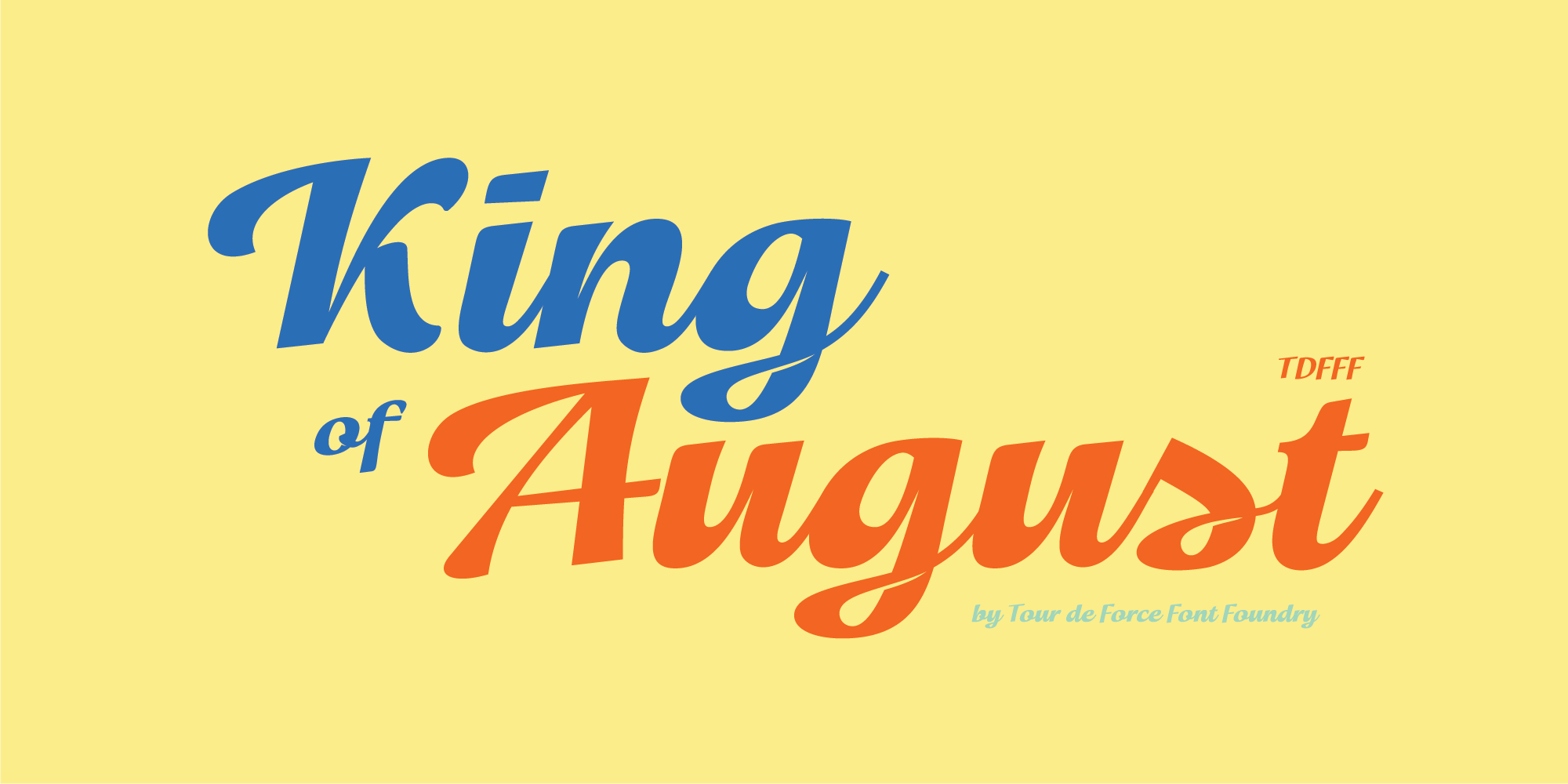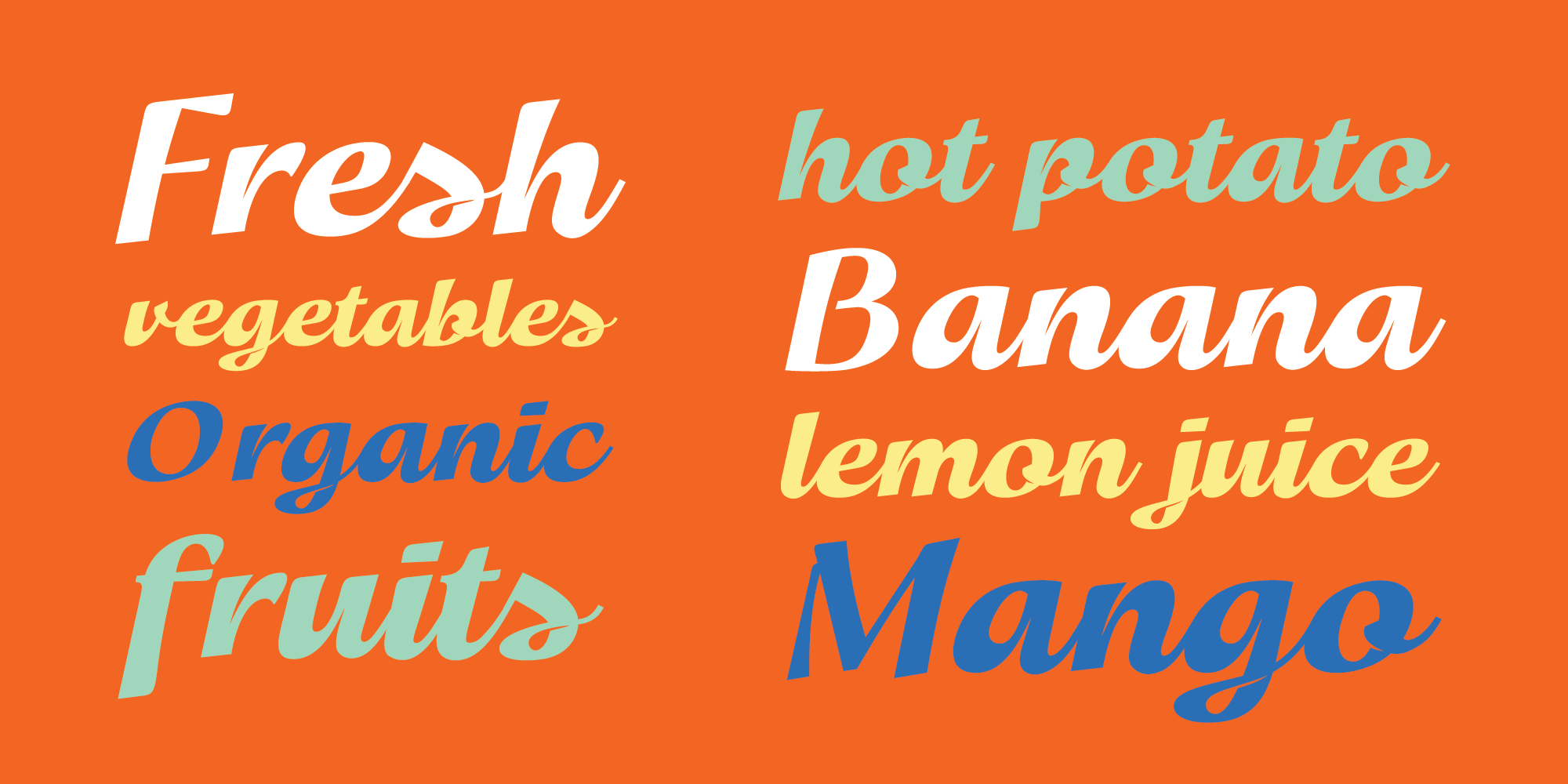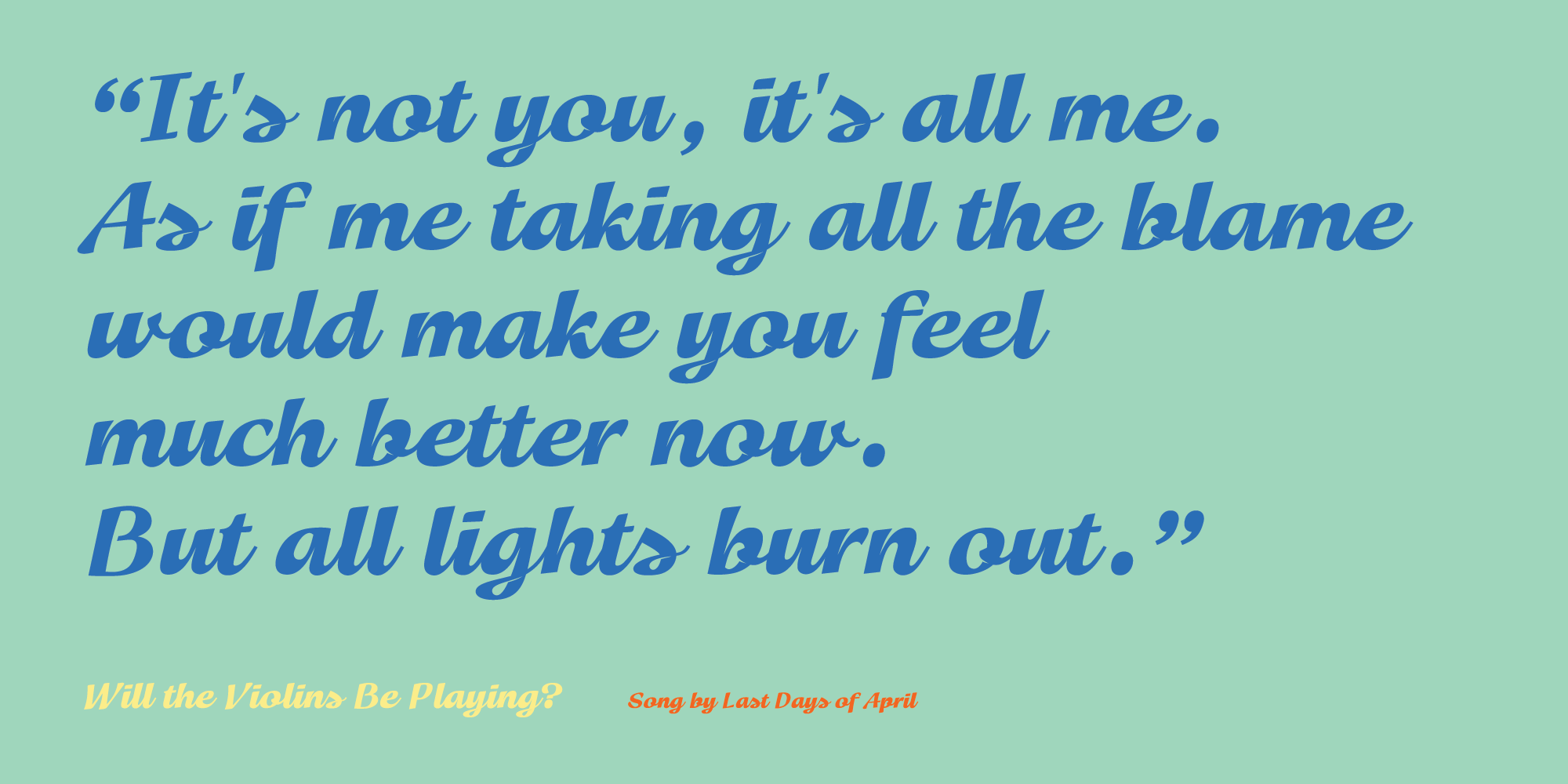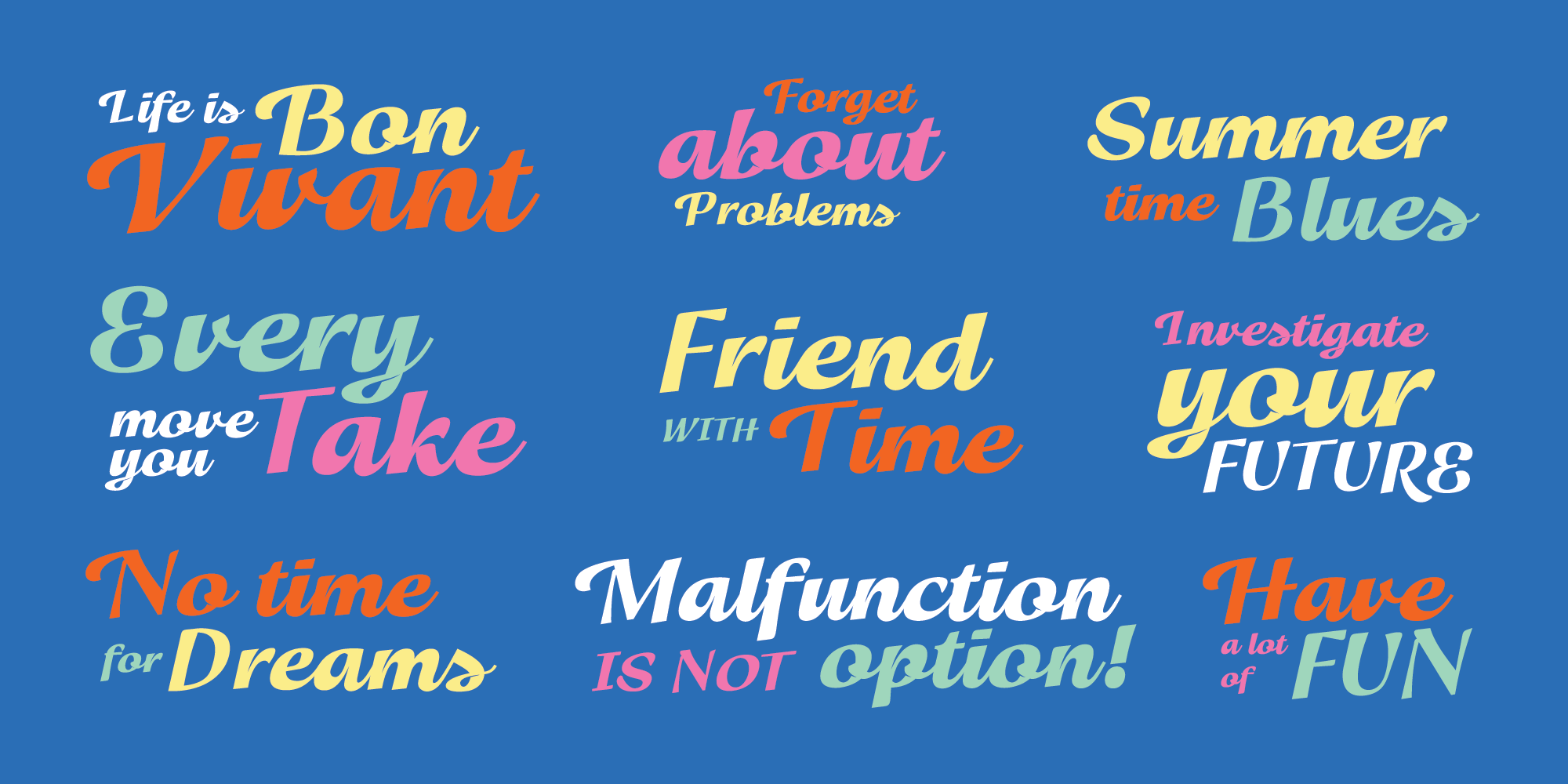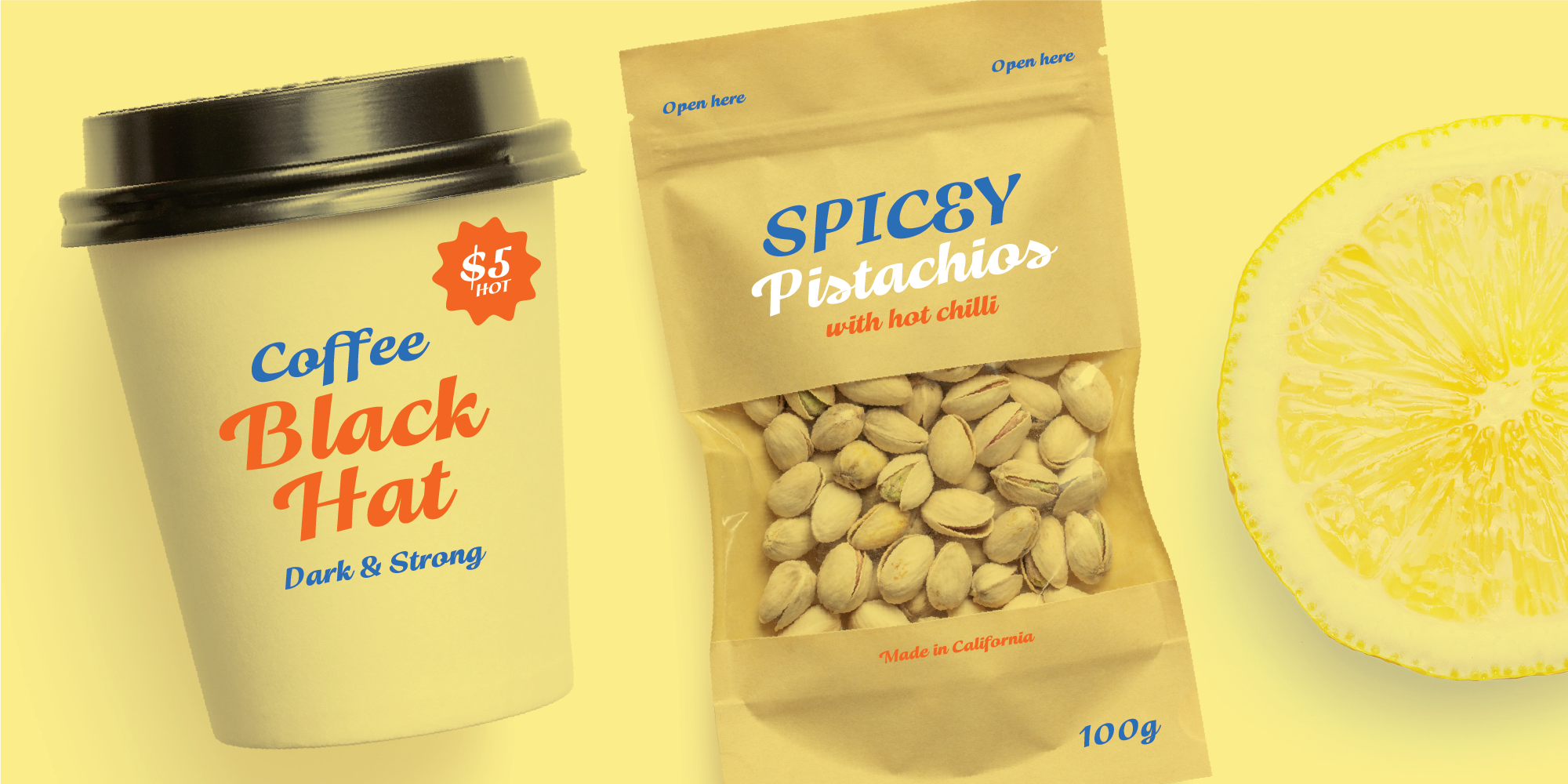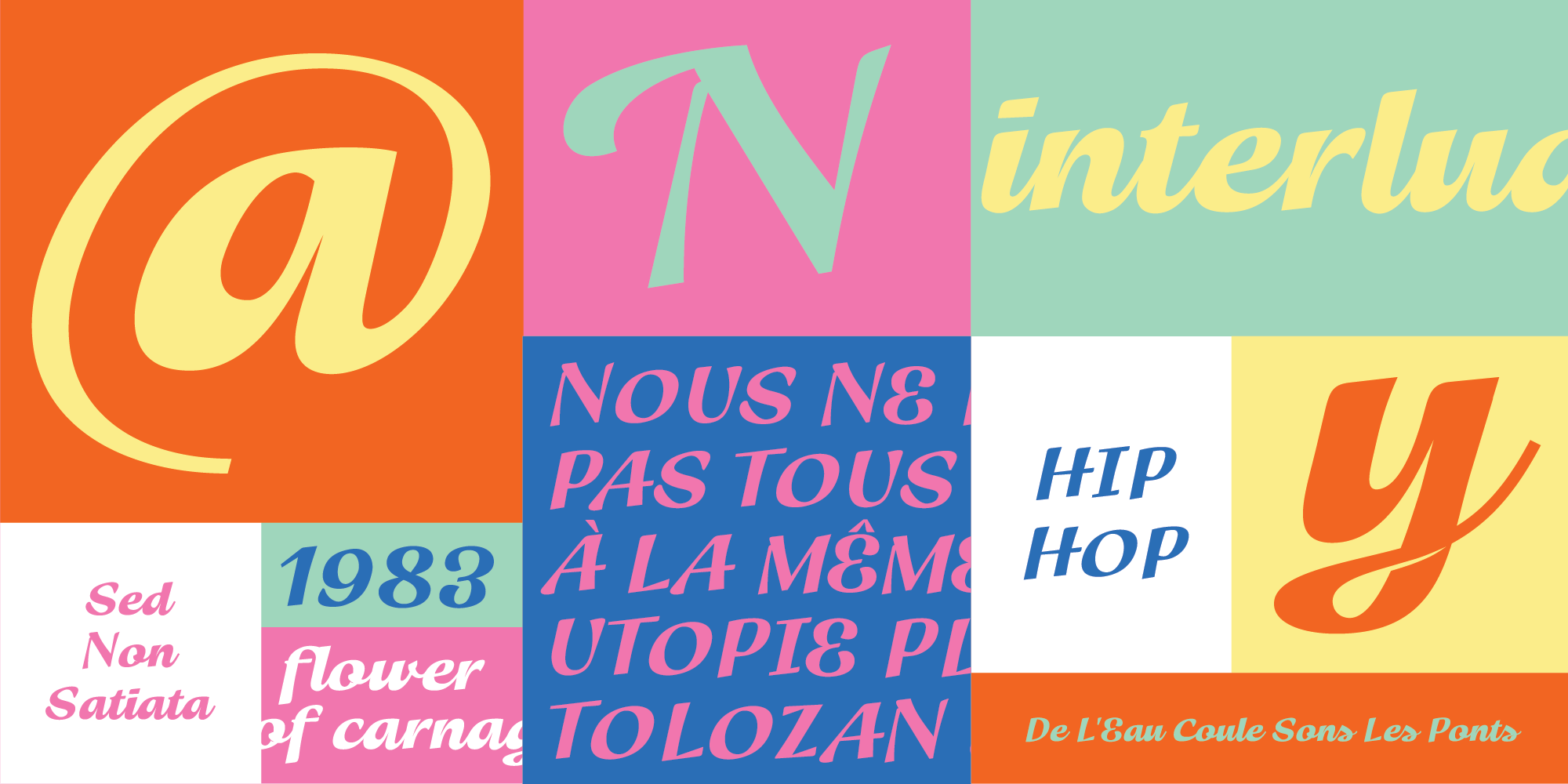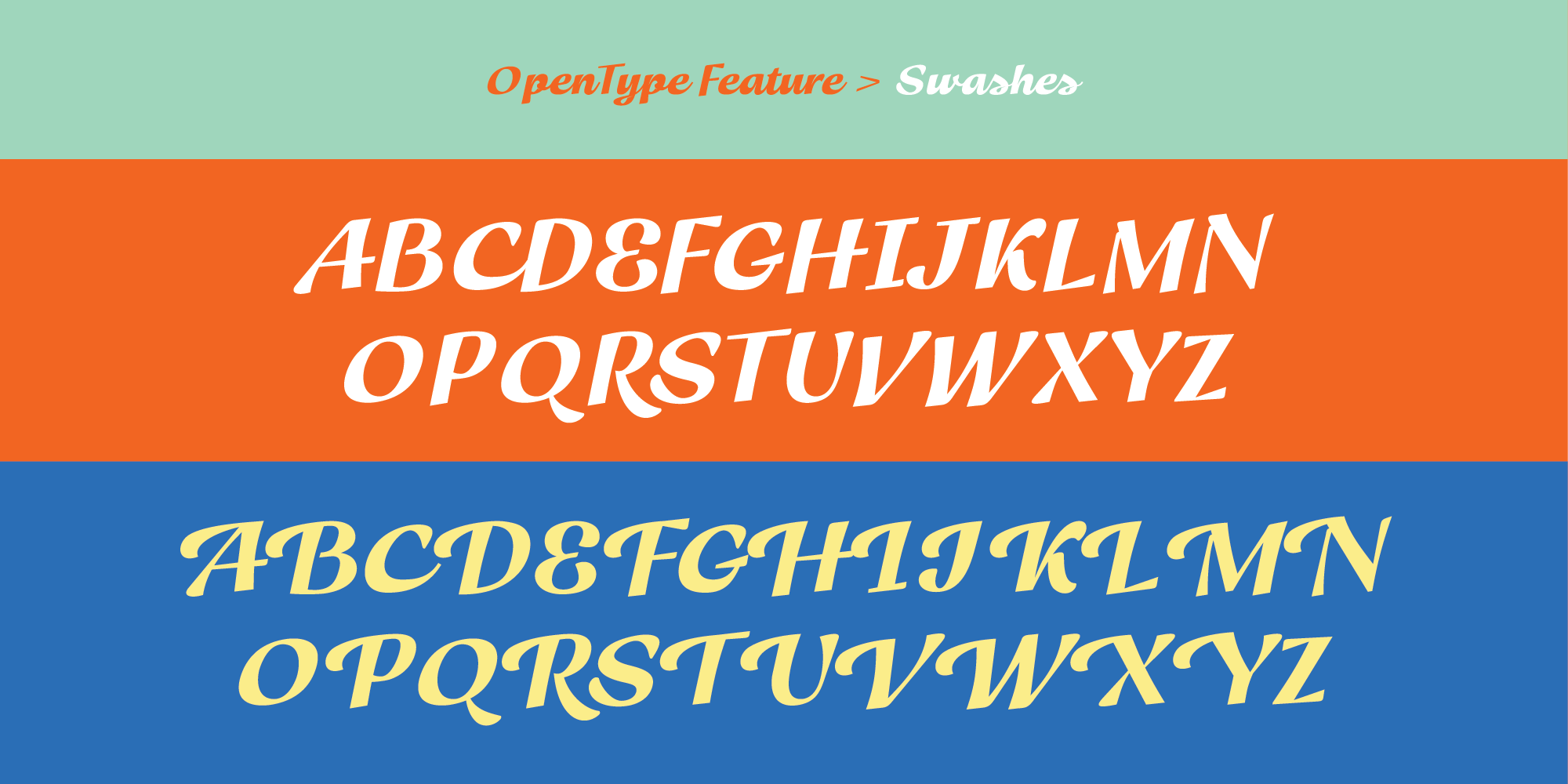
King of August is single weight script font.
King of August is single weight script font. Simple, elegant, designed letters with power to fit and lead any project. It is ideal for product names, labels, packages, King of August works well in titles and shorter paragraphs as well.
Comes with Swashes as OpenType feature.